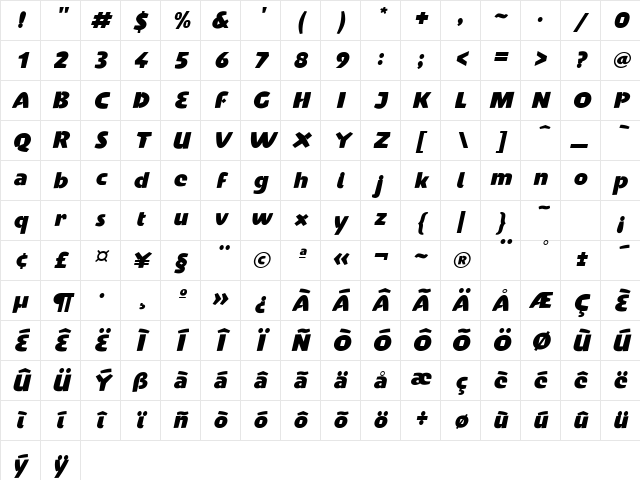
Complete Penguin Bold Italic glyph index. Displaying only characters natively supported by Penguin Bold Italic font.
Penguin is a composed and adaptable typeface that performs quietly and consistently across a wide range of design contexts. The slanted form adds forward momentum and visual energy. Its bold stroke weight gives it real presence on the page.
Pro Tip: Use Penguin for emphasis, pull quotes, and subheadings where its slanted energy can add rhythm to the layout.